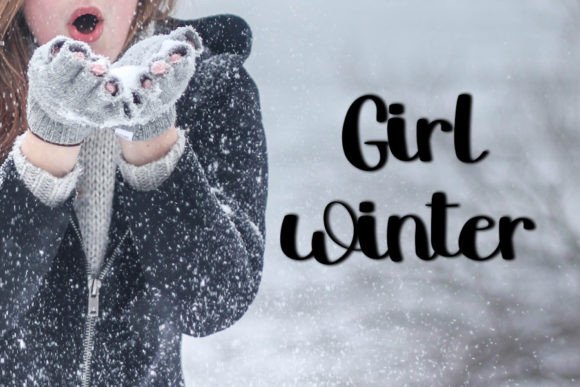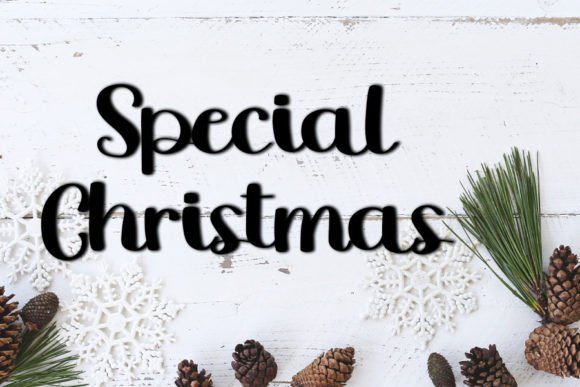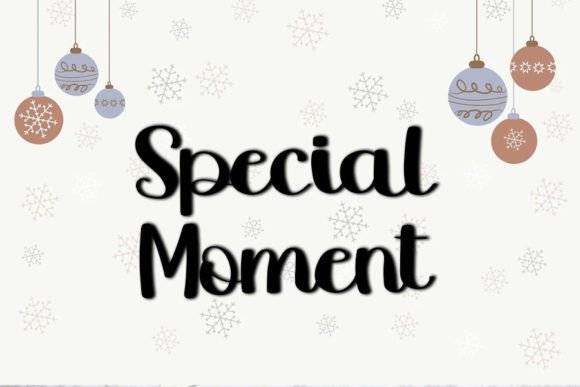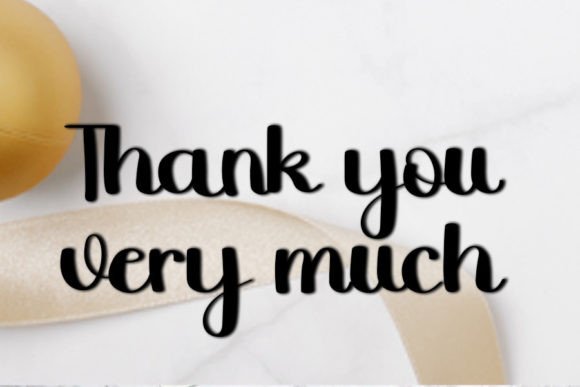
Introducing December Font: A Fresh and Beautiful Addition to Your Design Toolkit
Are you tired of using the same old fonts in your designs? Look no further! December Font is a stunning, modern font that can elevate your creative projects to the next level. In this article, we’ll explore the features and benefits of December Font, and how it can be used to create stunning designs for various purposes.
What is December Font?
December Font is a carefully crafted font designed to meet the needs of modern designers and crafters. Its fresh and beautiful style makes it perfect for a wide range of design purposes, including YouTube banners, covers, logos, mockups, wedding invitations, ID cards, flyers, and other crafts.
Key Features of December Font
- Unique and Modern Style: December Font boasts a unique and modern style that sets it apart from other fonts. Its clean lines and elegant curves make it perfect for designs that require a touch of sophistication.
- Highly Versatile: December Font is highly versatile and can be used for various design purposes, from digital designs like YouTube banners and social media graphics to print designs like wedding invitations and flyers.
- Easily Readable: December Font is designed to be easily readable, even at small sizes, making it perfect for designs that require a lot of text, such as ID cards and business cards.
- Customizable: December Font can be easily customized to fit your design needs. You can adjust the font size, color, and style to match your brand’s identity.
Design Ideas Using December Font
December Font is a versatile font that can be used for a wide range of design projects. Here are some design ideas to get you started:
- YouTube Banners and Covers: Create stunning YouTube banners and covers using December Font. Its modern style and clean lines make it perfect for showcasing your brand’s personality.
- Wedding Invitations: December Font is perfect for wedding invitations, adding a touch of elegance and sophistication to your design.
- Logos and Branding: Use December Font to create a unique and memorable logo for your brand. Its versatility and customizability make it perfect for creating a brand identity.
- ID Cards and Business Cards: December Font is easily readable and perfect for creating ID cards and business cards that require a professional touch.
- Flyers and Brochures: Create eye-catching flyers and brochures using December Font. Its modern style and clean lines make it perfect for showcasing your products or services.
Tips for Using December Font
Here are some tips for using December Font in your designs:
- Experiment with Font Sizes: December Font is easily readable at various font sizes. Experiment with different font sizes to find the perfect size for your design.
- Play with Colors: December Font looks great in various colors. Experiment with different colors to find the perfect match for your brand’s identity.
- Combine with Other Fonts: December Font can be paired with other fonts to create a unique and visually appealing design.